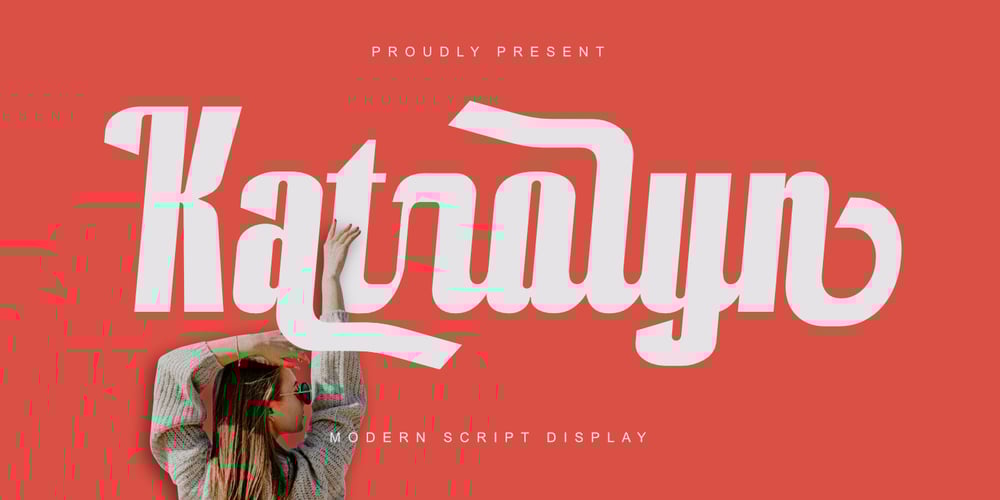
Katrolyn
Katrolyn font
Katrolyn Font Family was designed by Saiful Anwar and published by Sealoung. Katrolyn contains 1 styles and family package options. Introducing “Katrolyn Modern Script Display,” a font designed to bring elegance and sophistication to your designs. With its wide array of alternate characters, this font allows you to create truly unique and personalized typography. Each letter is carefully crafted to convey a sense of modernity and style, making it perfect for branding, wedding invitations, and other special occasions. Stand out from the crowd and elevate your designs with “Katrolyn Modern Script Display.”